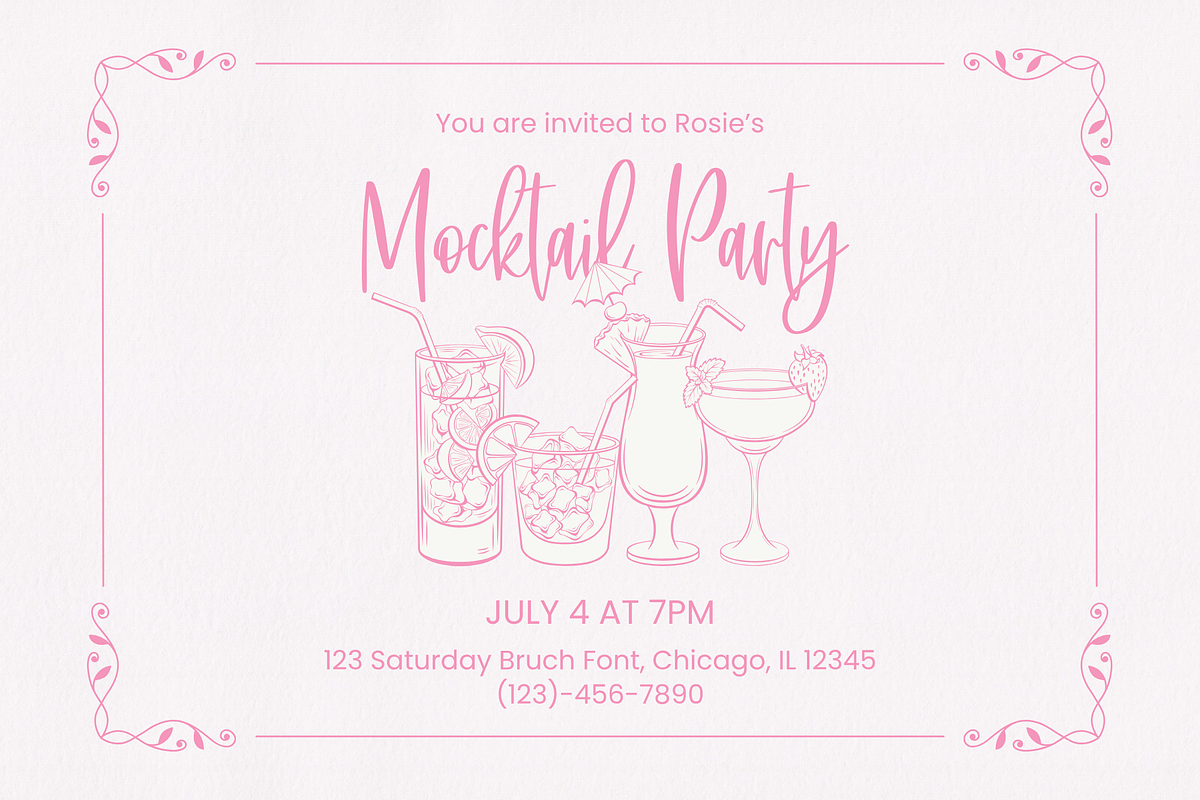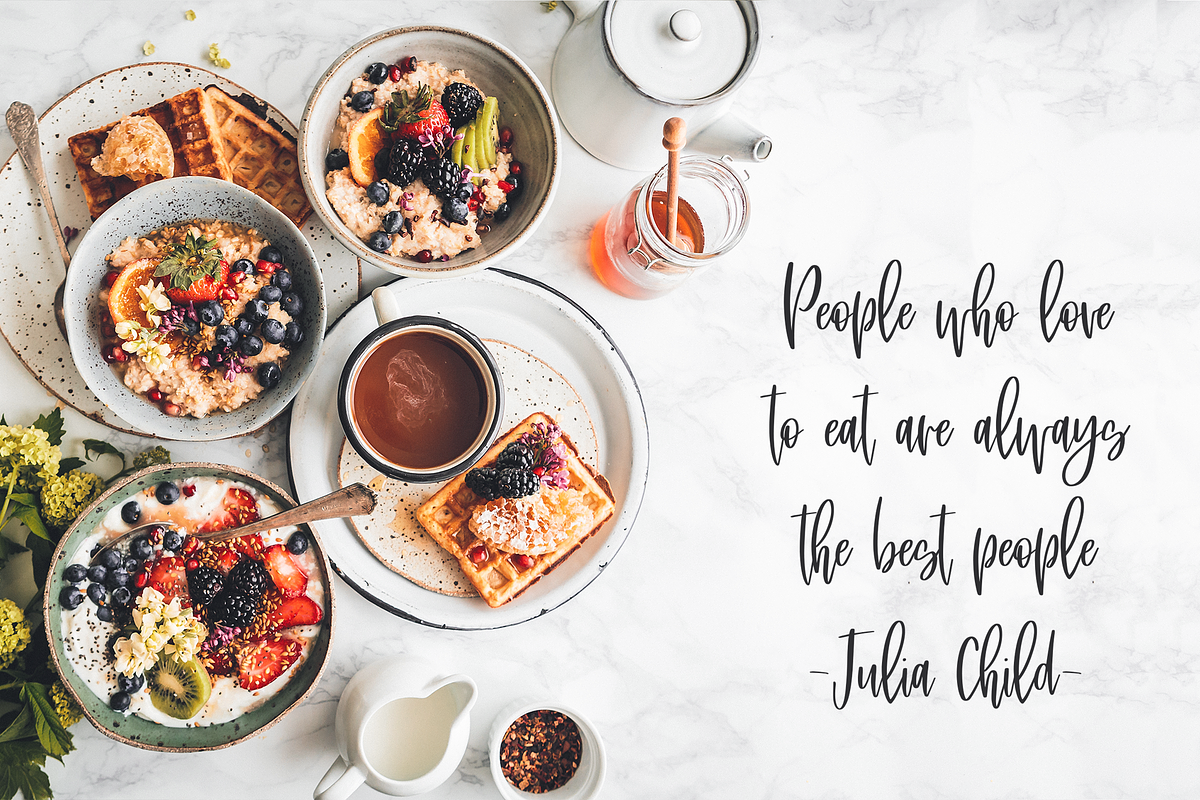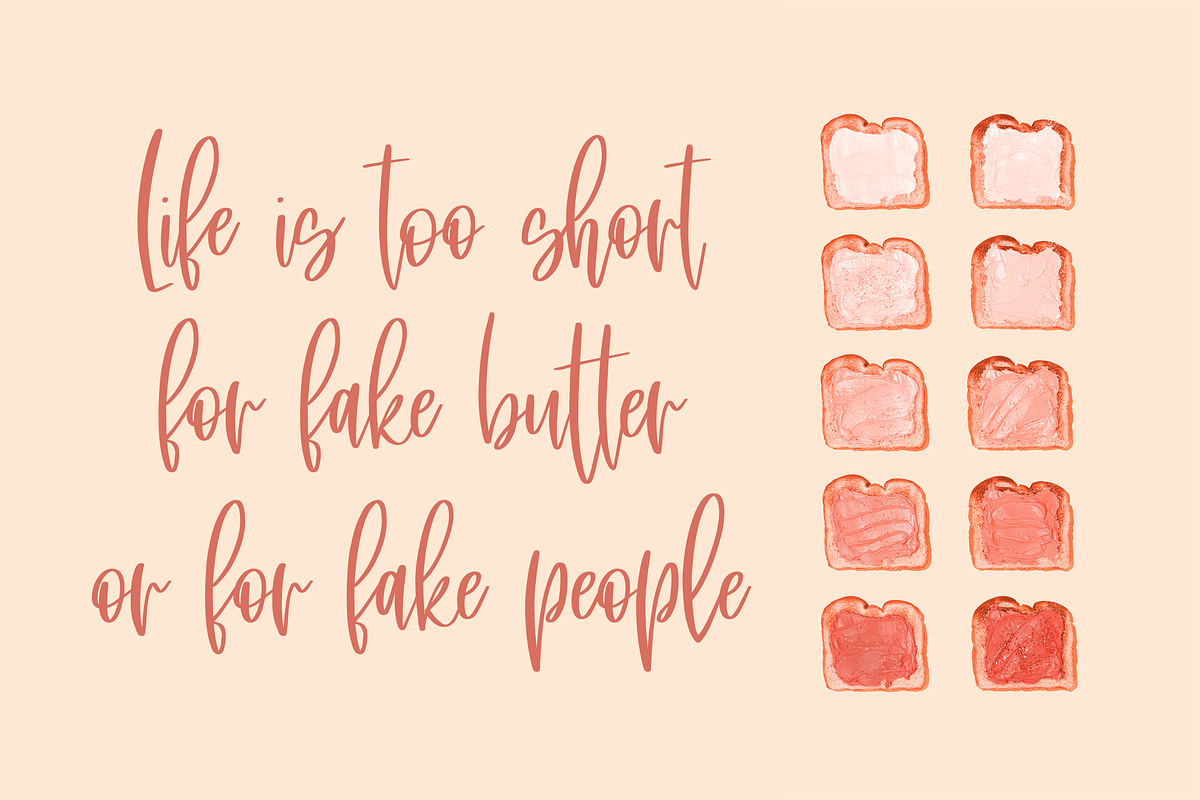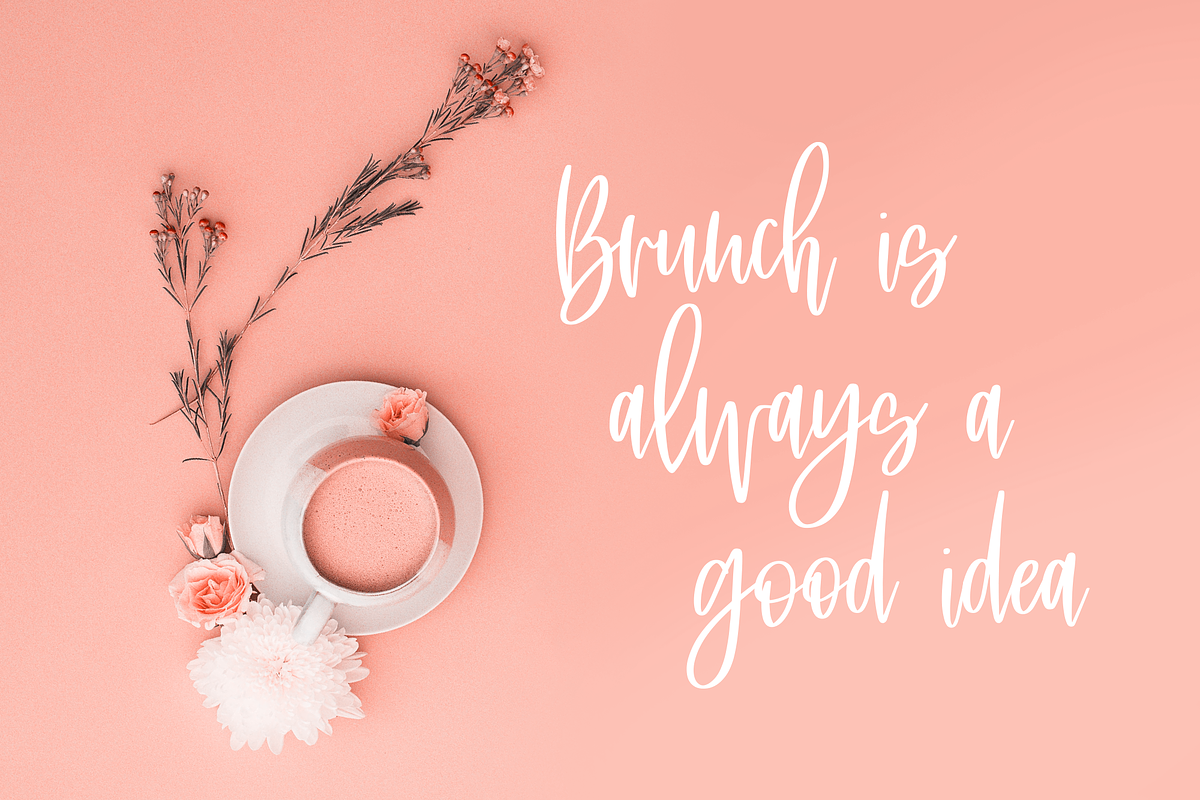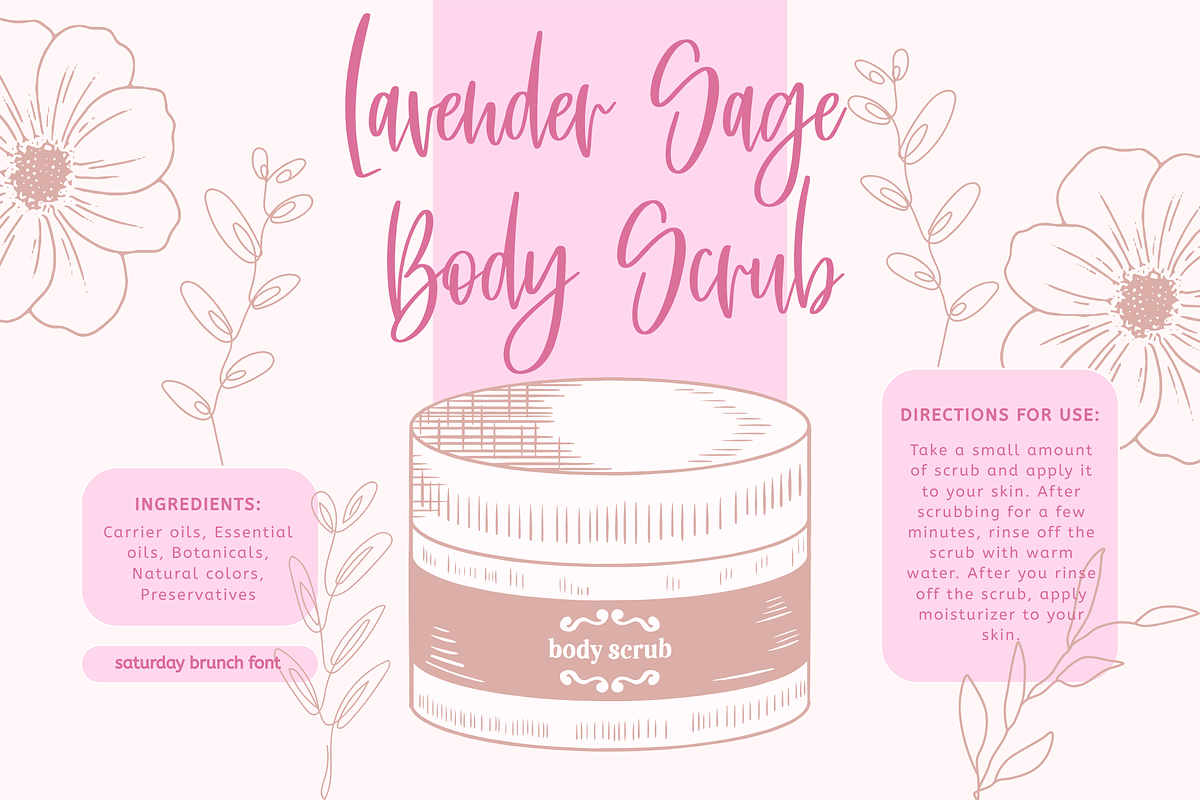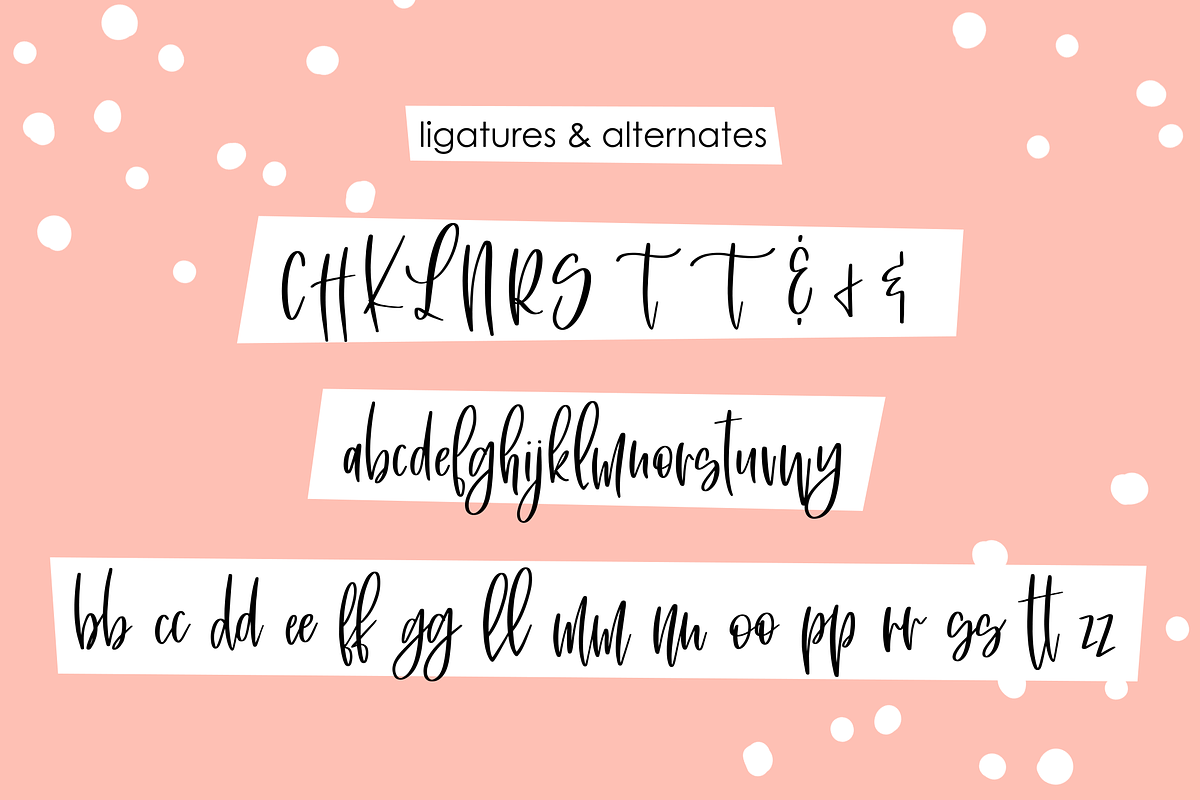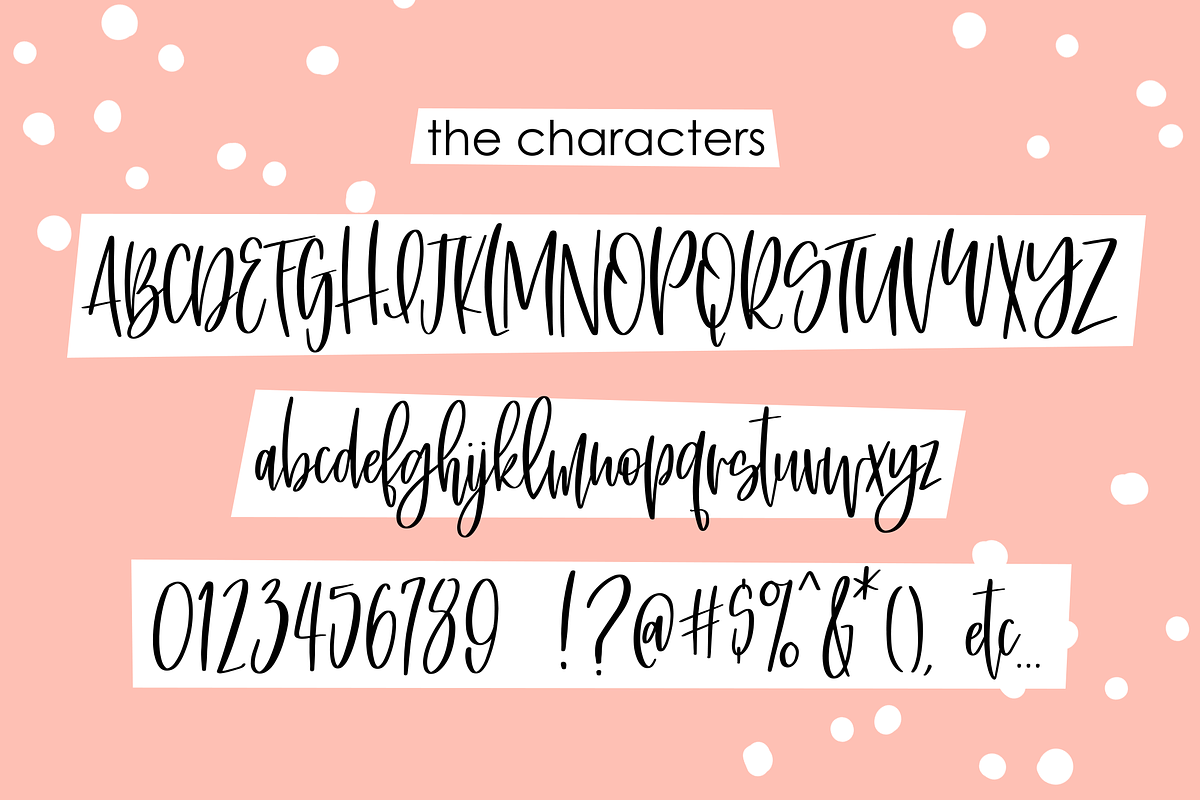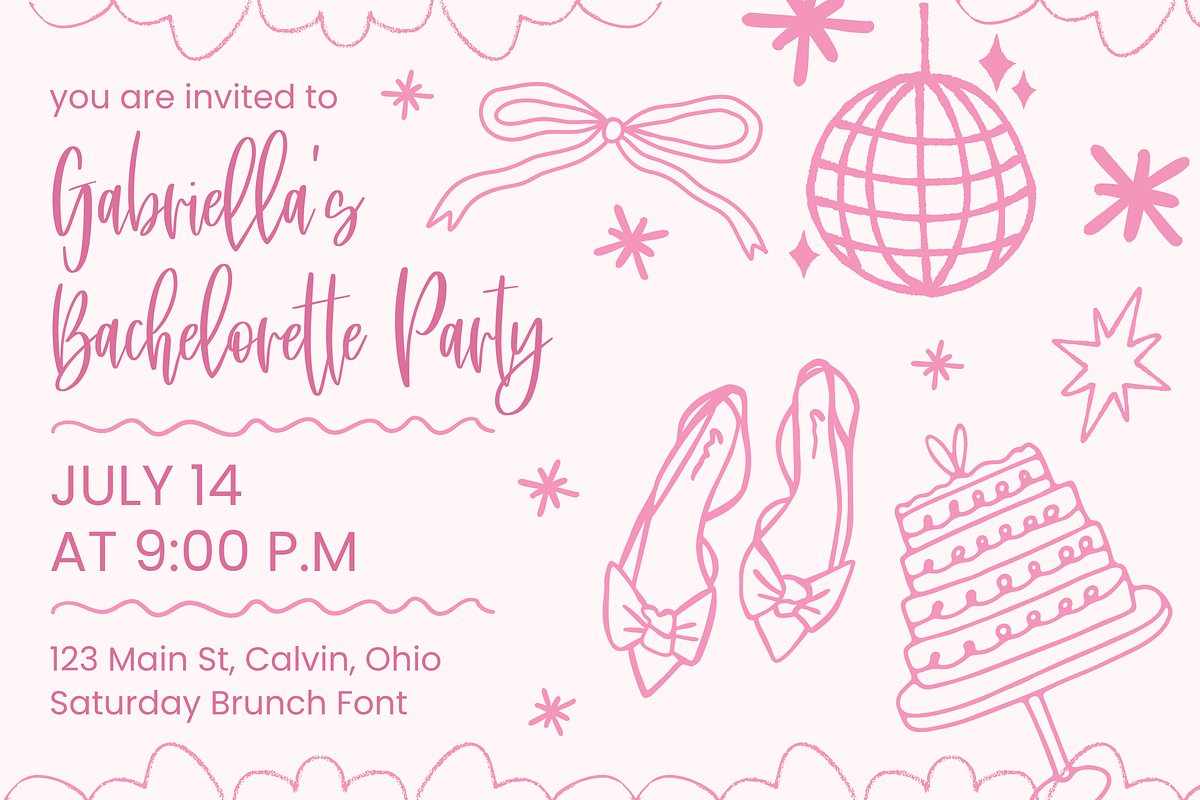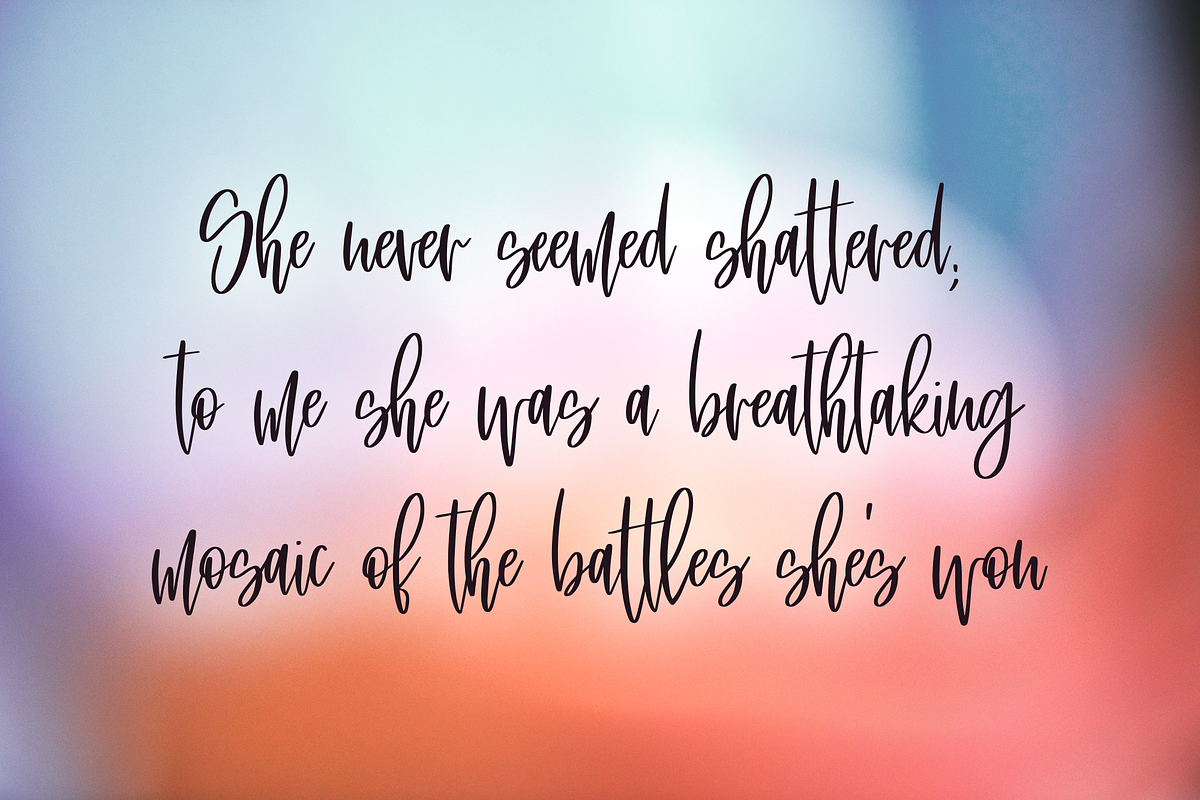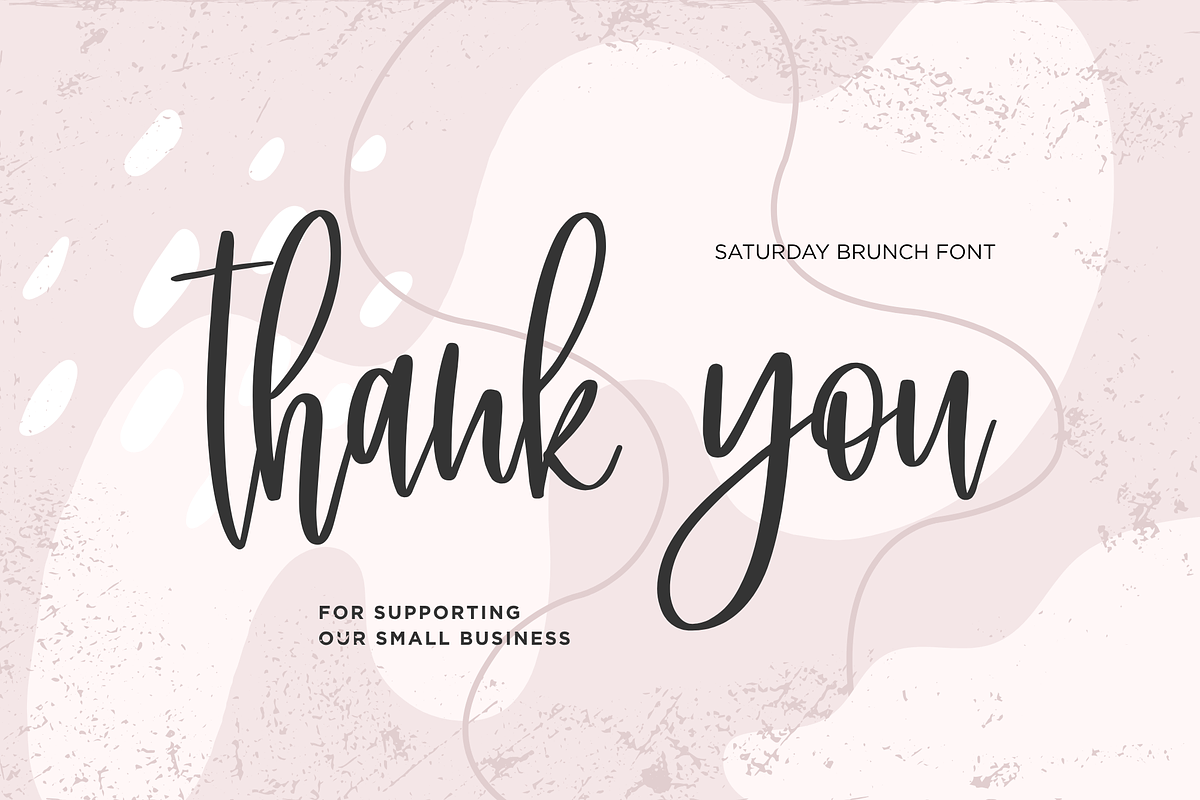
Saturday Brunch, a tight tall script
Saturday Brunch is a tight, tall script font with a modern handwritten look and a playful personality. Its smooth lines and upright style make it perfect for logos, product packaging, Instagram posts, and casual branding.
This font has a clean, trendy vibe that works beautifully for quotes, invitations, business names, and creative projects that need a stylish handwritten touch.
Great for: Logos, packaging, modern branding, quotes, social media, stationery